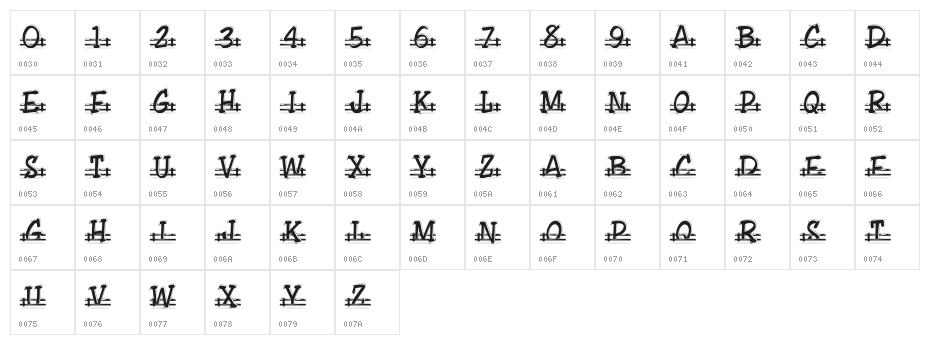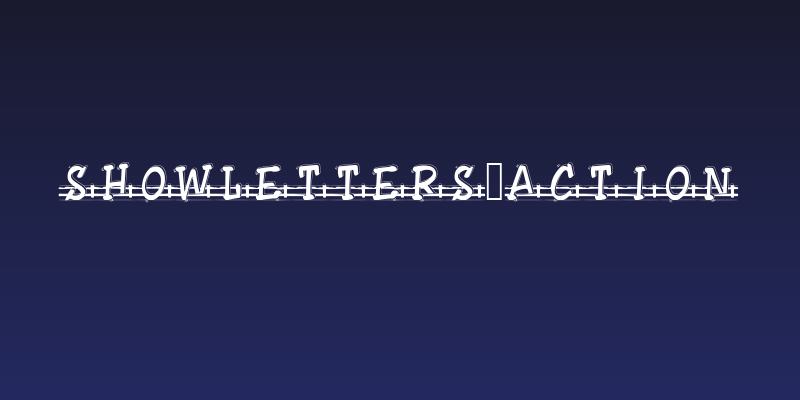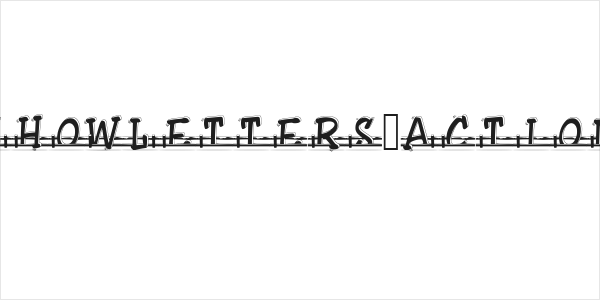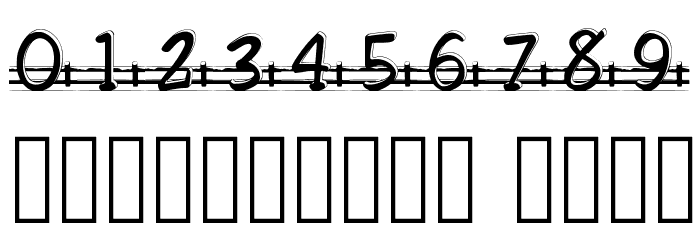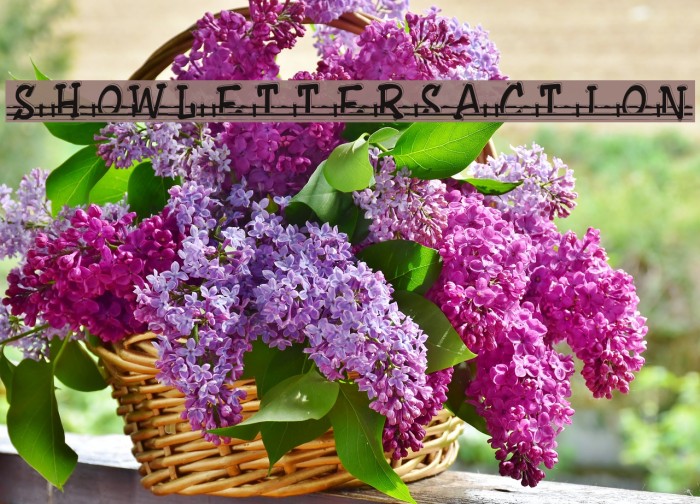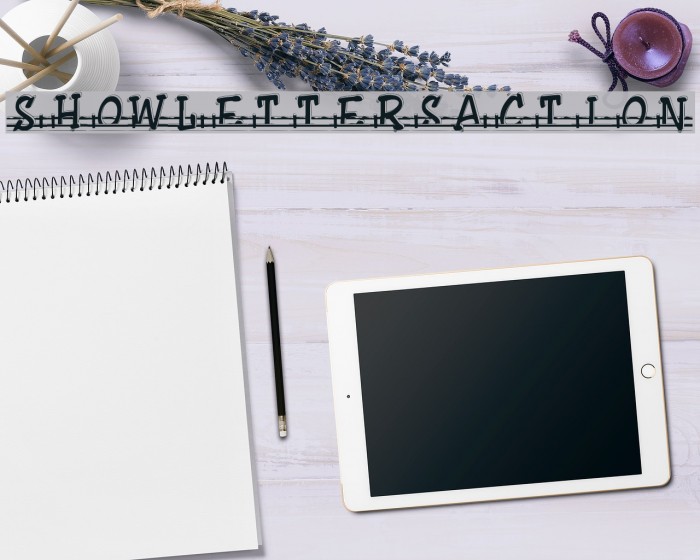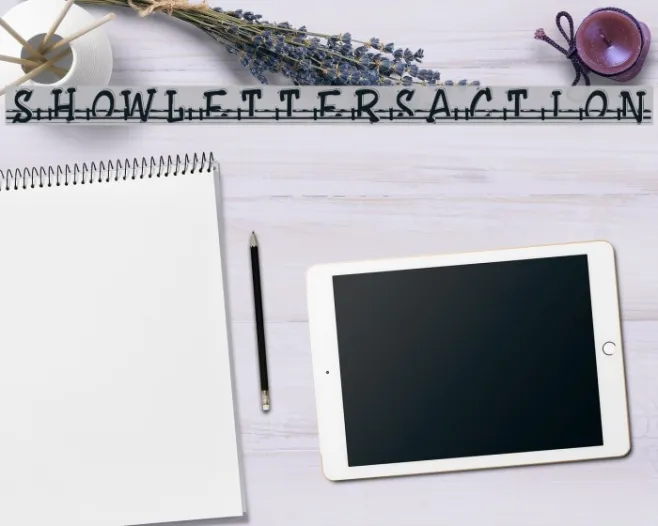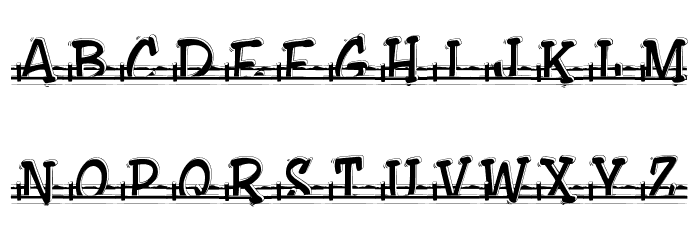
ShowLetters_Action Font
ShowLetters_Action Description
This font features a playful and dynamic design, characterized by bold, hand-drawn letters that are crossed out with a horizontal line. The uppercase and lowercase letters maintain a consistent style, with a slightly irregular and whimsical appearance. The numbers follow the same design, ensuring uniformity across all characters. The special characters are enclosed in boxes, adding a unique touch to the overall aesthetic. This font's distinctive style makes it stand out, with its bold strokes and creative presentation.
SHOWLETTERS_ACTION UPPERCASE
SHOWLETTERS_ACTION LOWERCASE
SHOWLETTERS_ACTION OTHER CHARS